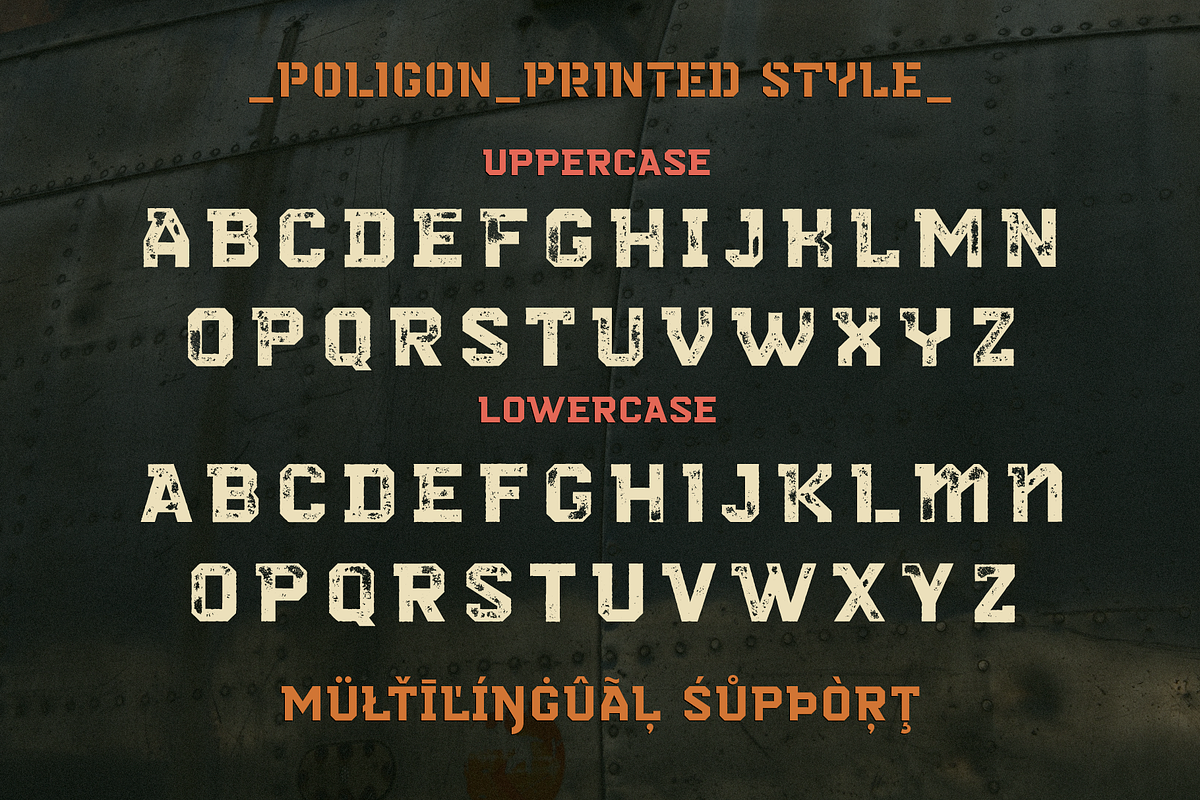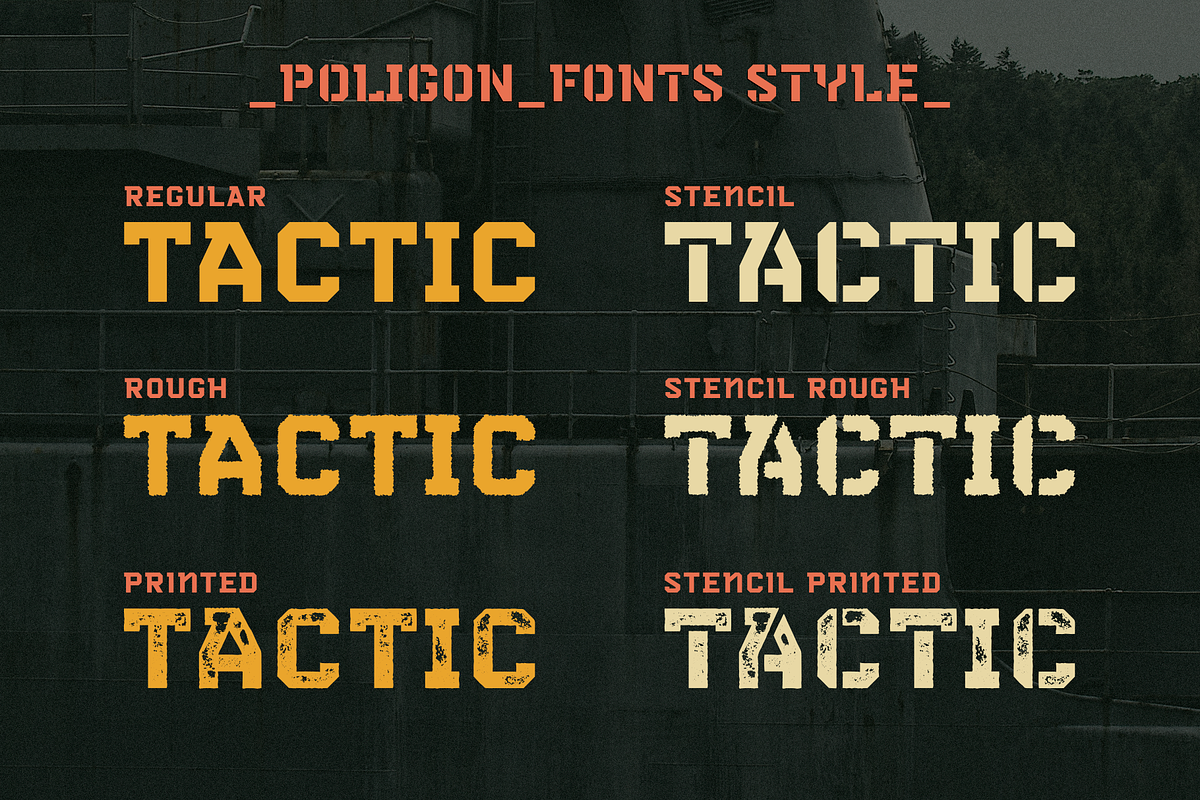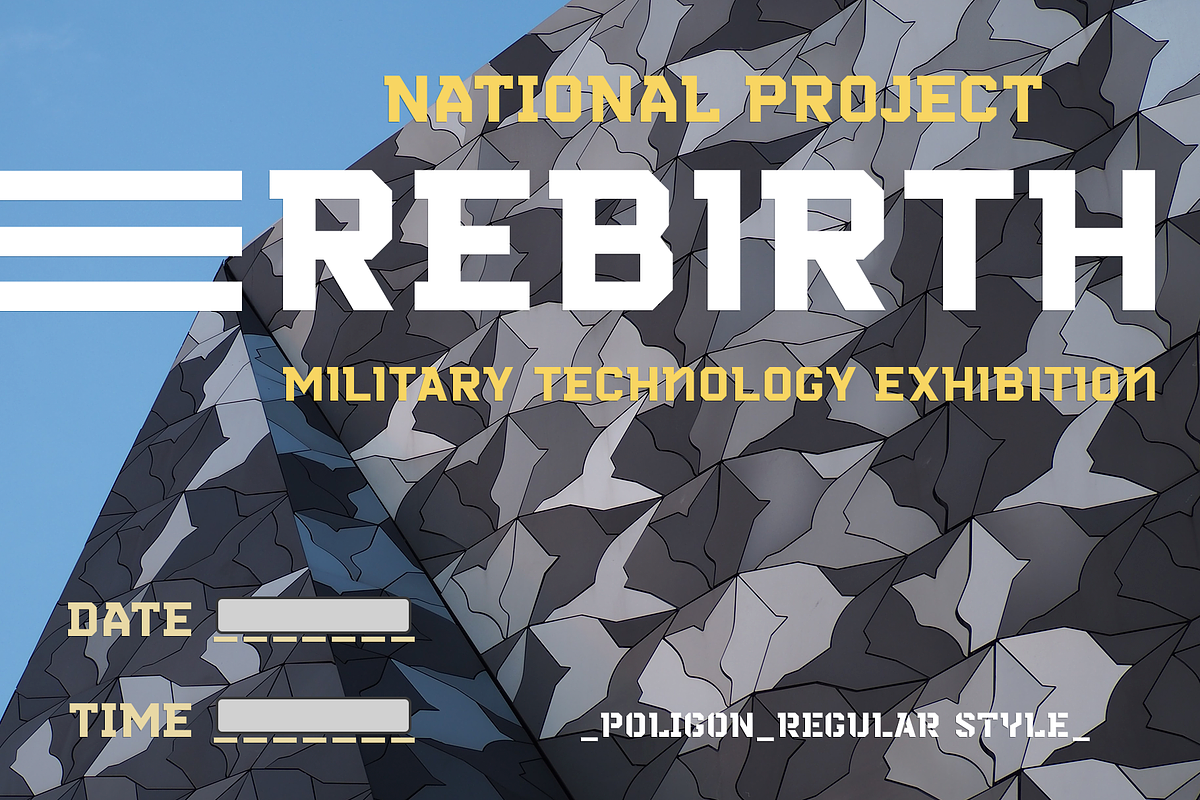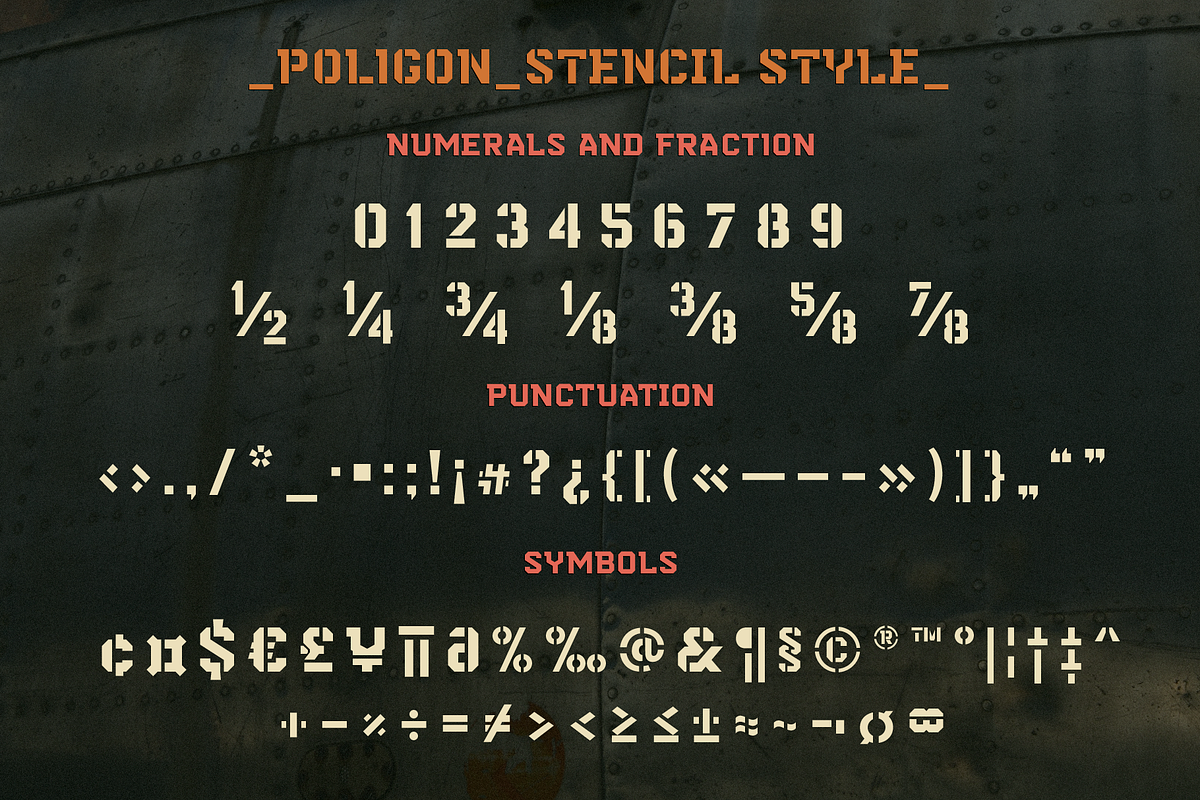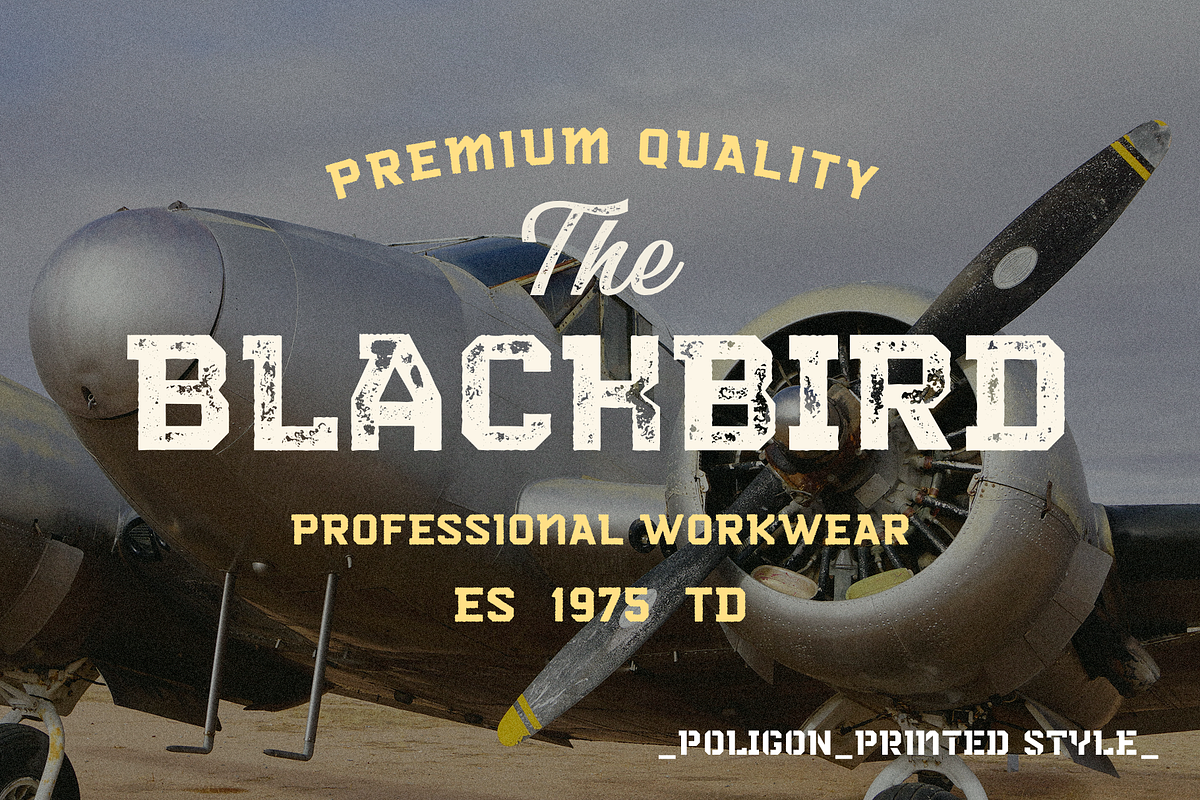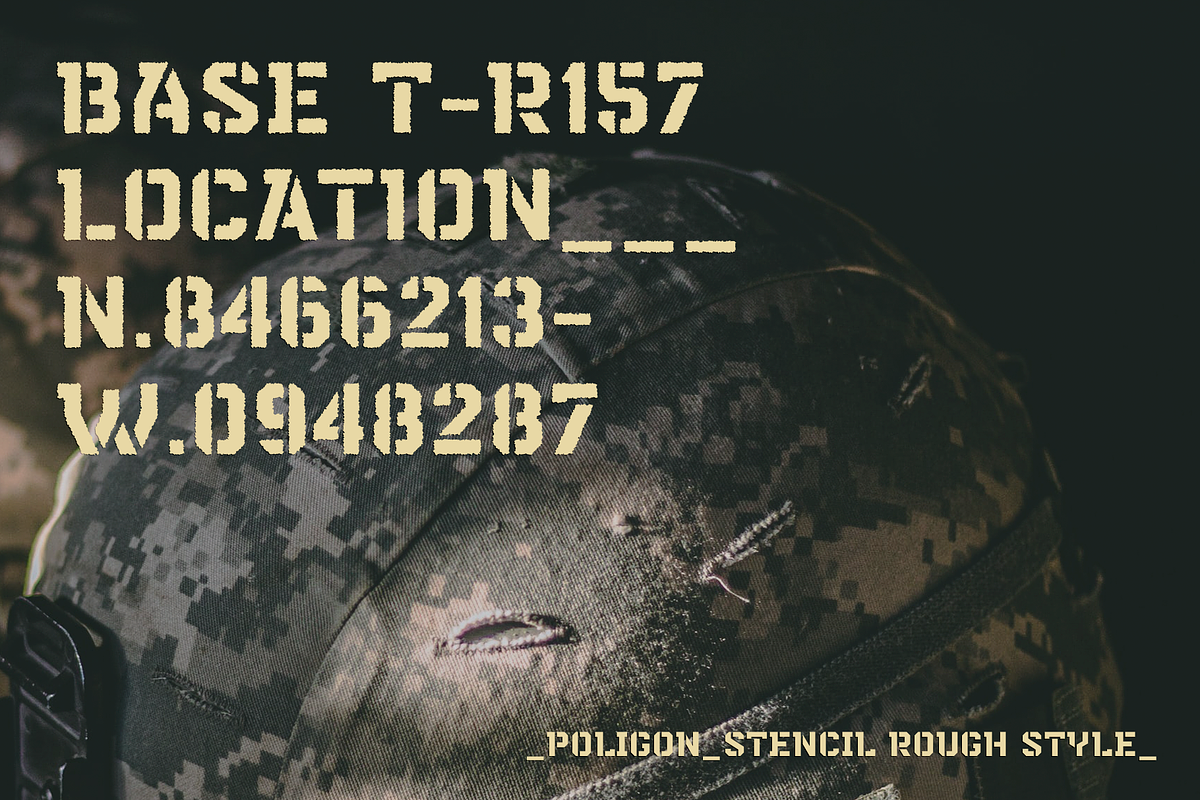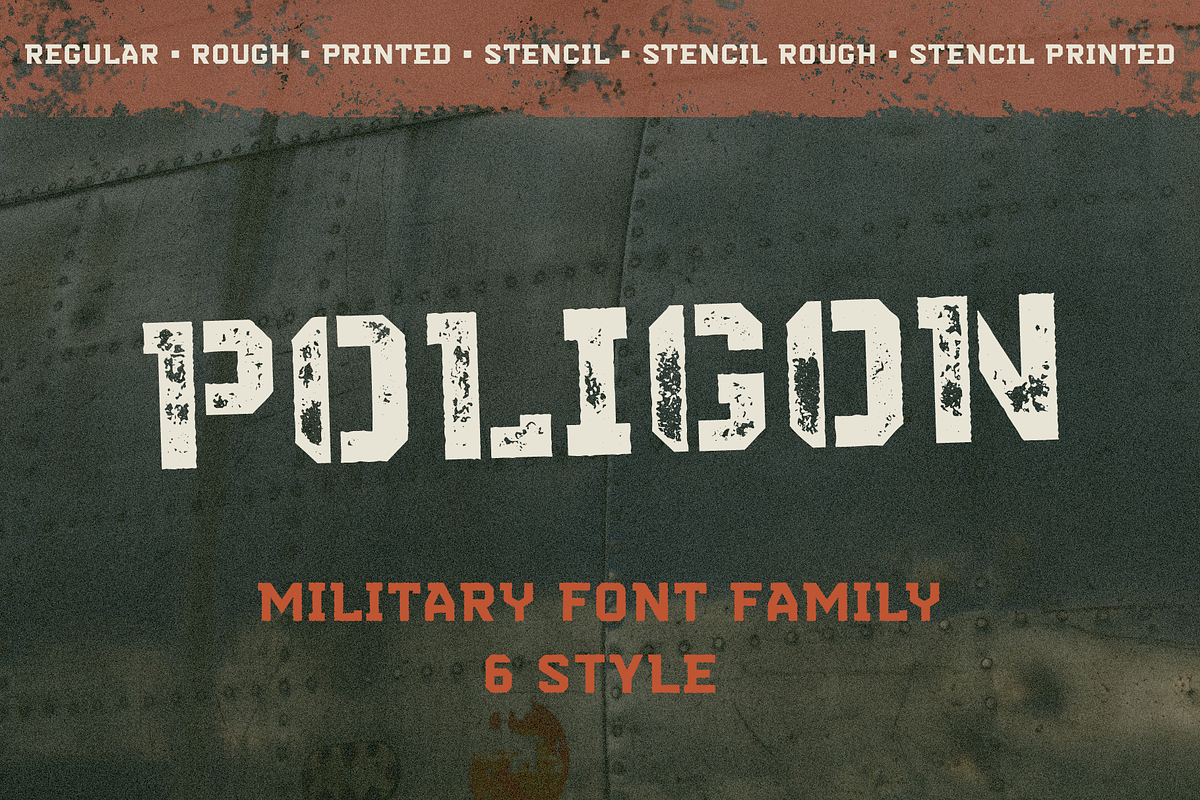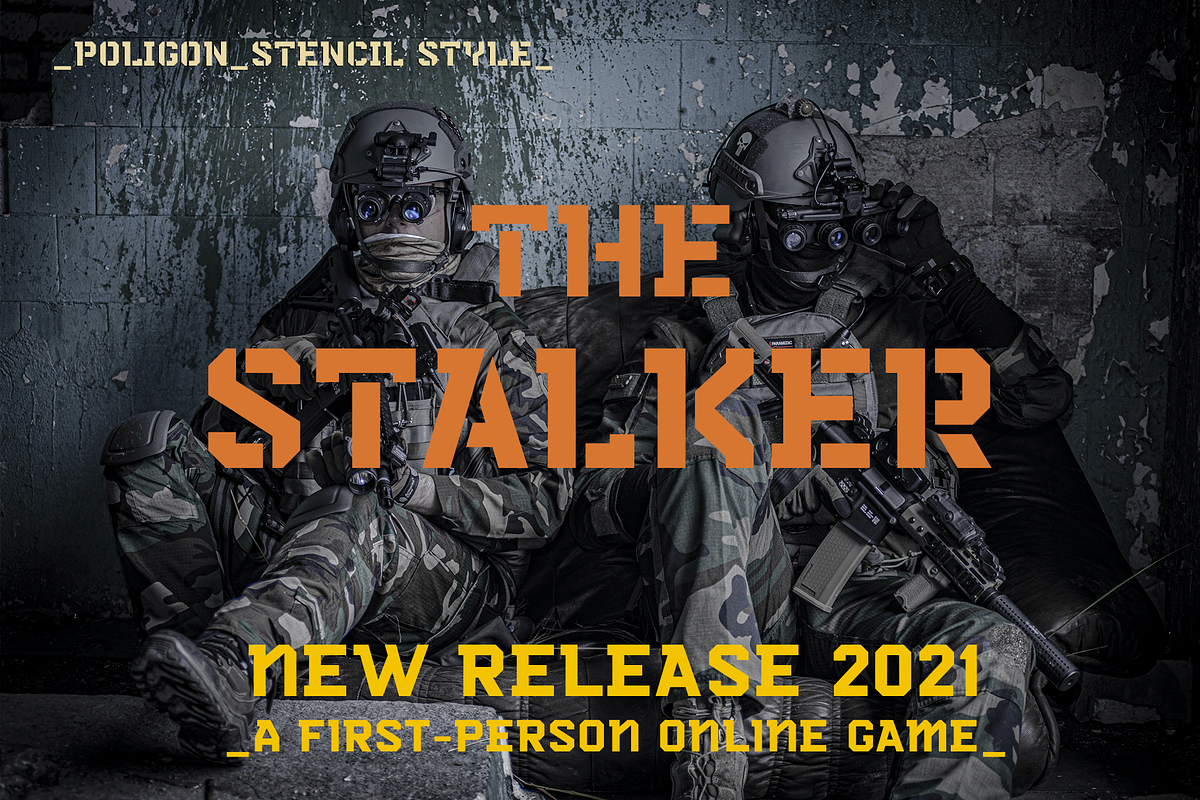
Poligon
Poligon This is a military font family inspired by the military and aviation style, including Six styles: regular, rough, printed, stencil, stencil rough, stencil printed.
This font is a wide specialization, it will be an excellent option for creating projects in the military style in both modern and vintage versions. It is great for creating logos, labels, branding projects, magazines, mugs, flyers, posters and much more, and it is also perfectly readable in the text. This font is easy to use has OpenType features.
Following international symbols support: ÀÁÂÃÄÅĄÇĆÈÉÊËĘÌÍÎÏÐÑŃŁÒÓÔÕÖØÙÚÛÜŚŠŸÝŹŻŽßàáâãäåçèéêëìíîïðñòóôõöøùúûüýÿąćęłńśšźżž
6 fonts styles
Full alphabet with Uppercase and Lowercase A-Z
Numbers, fractions
Punctuation and symbols